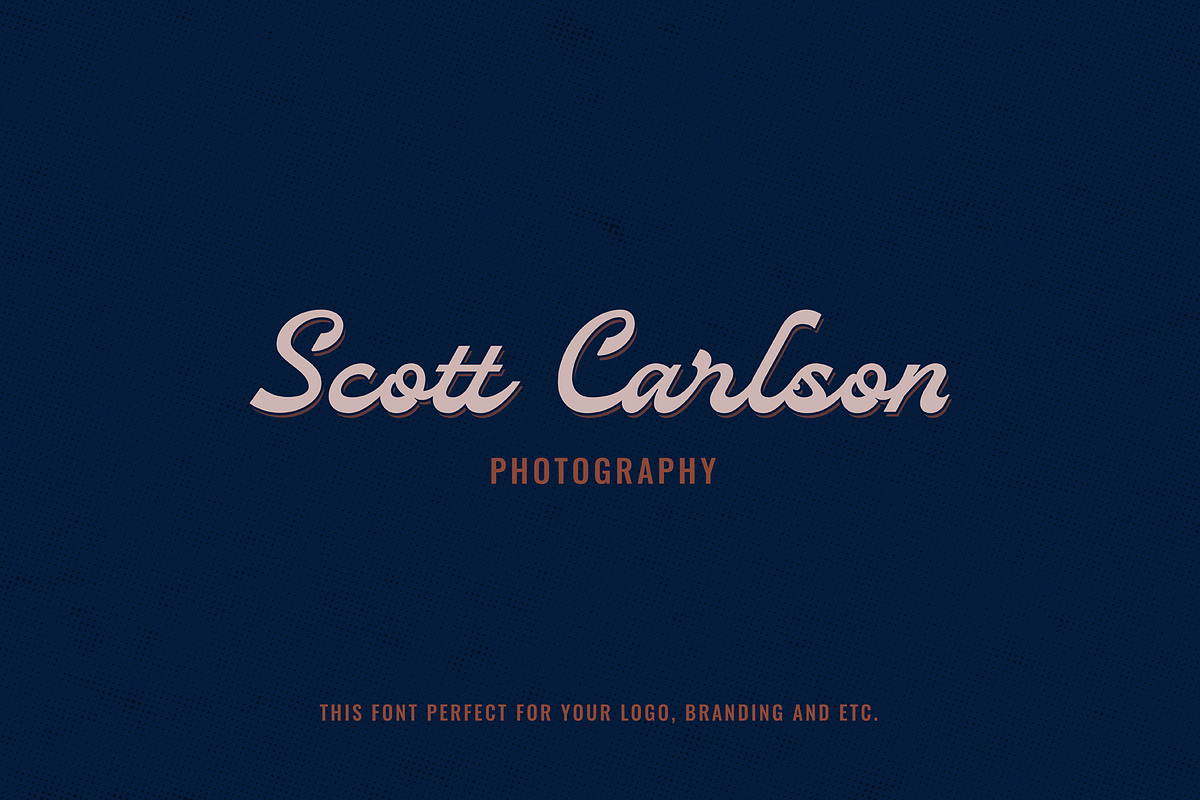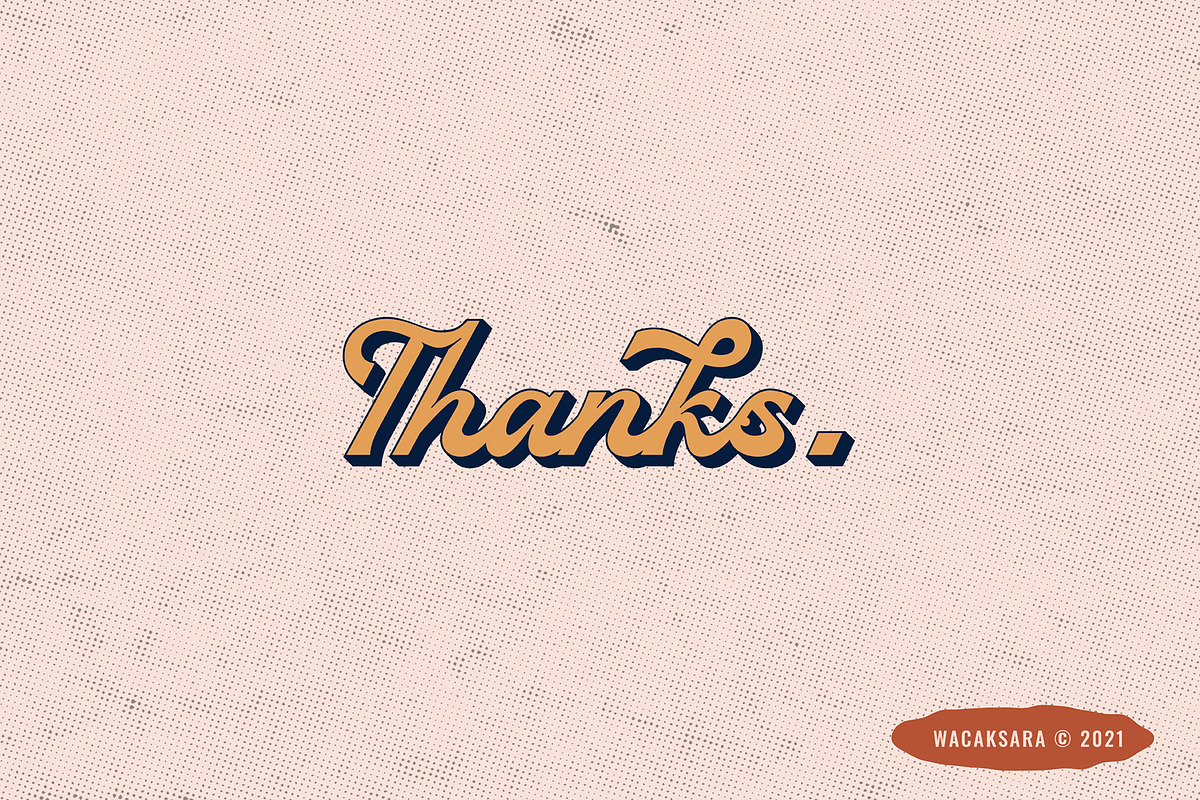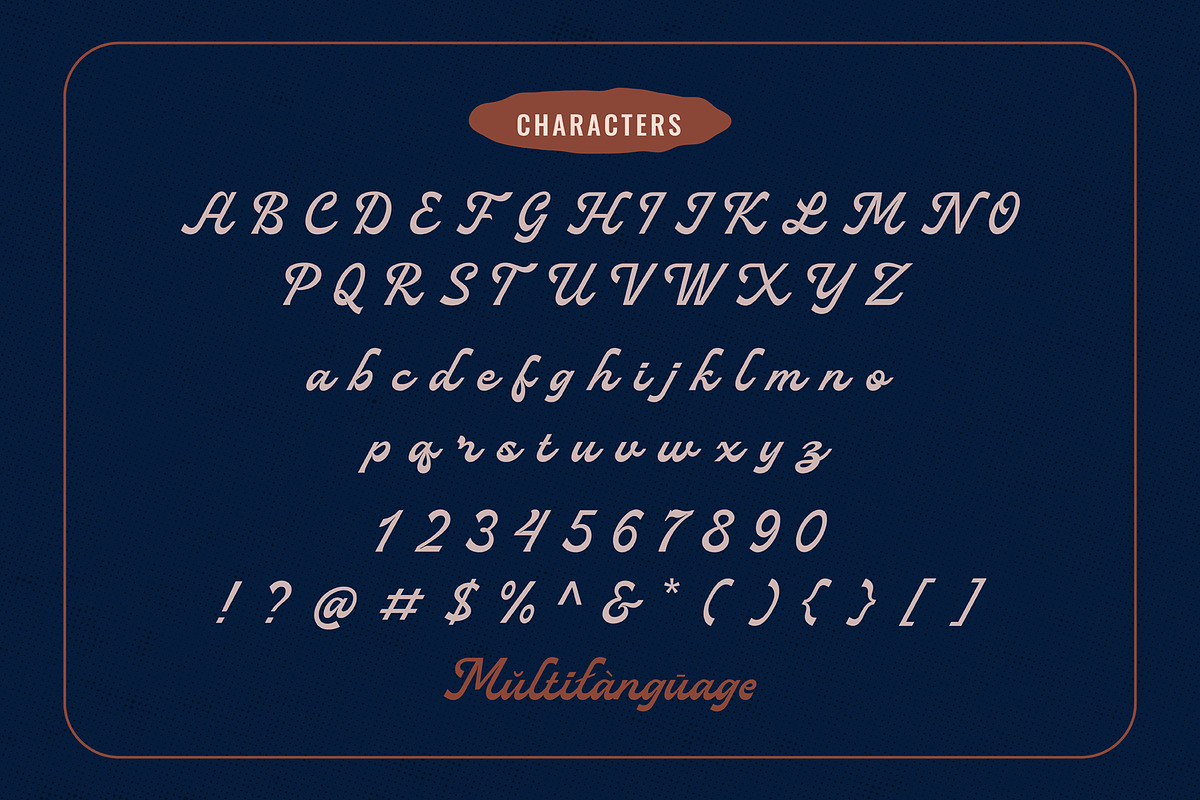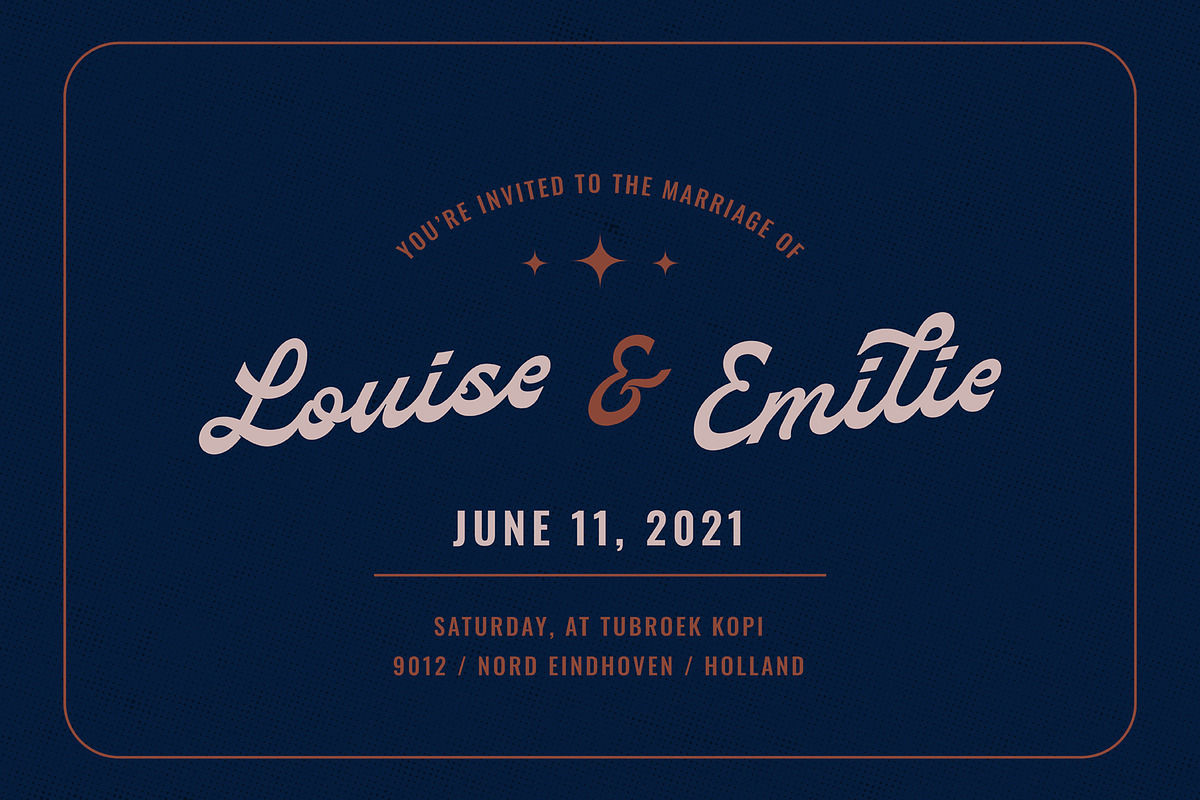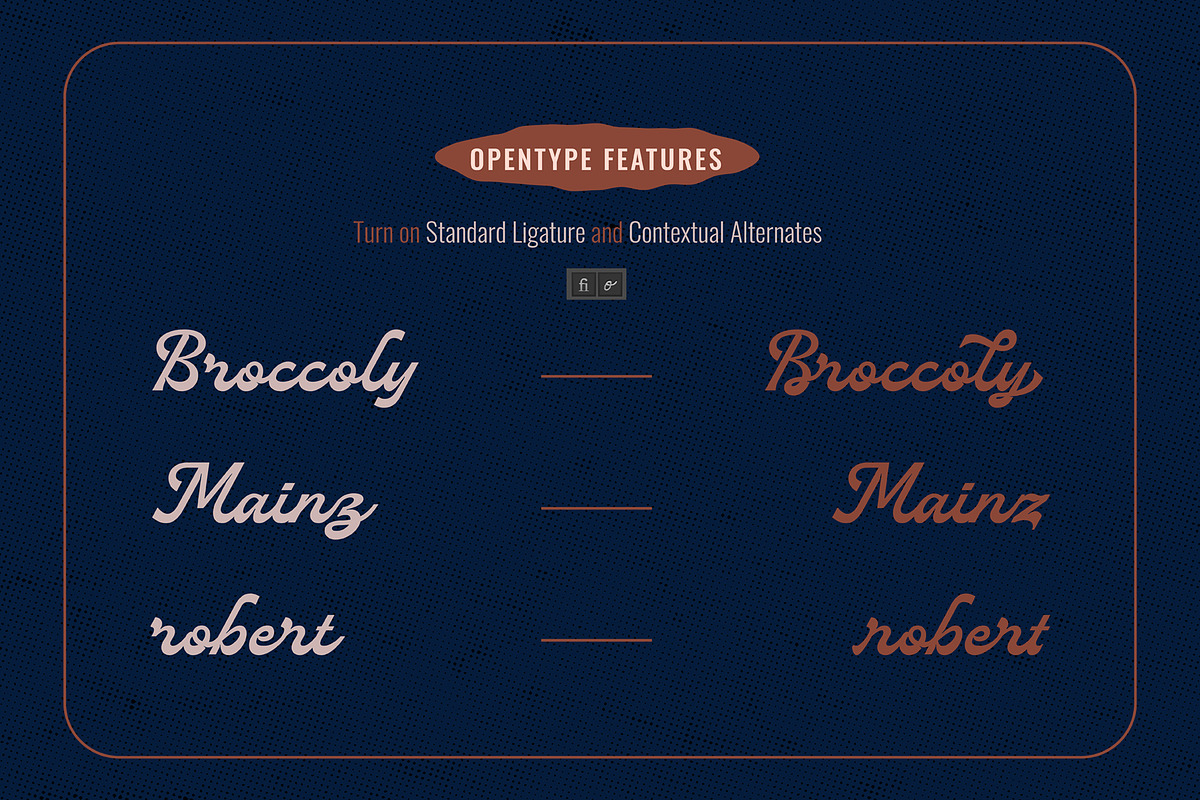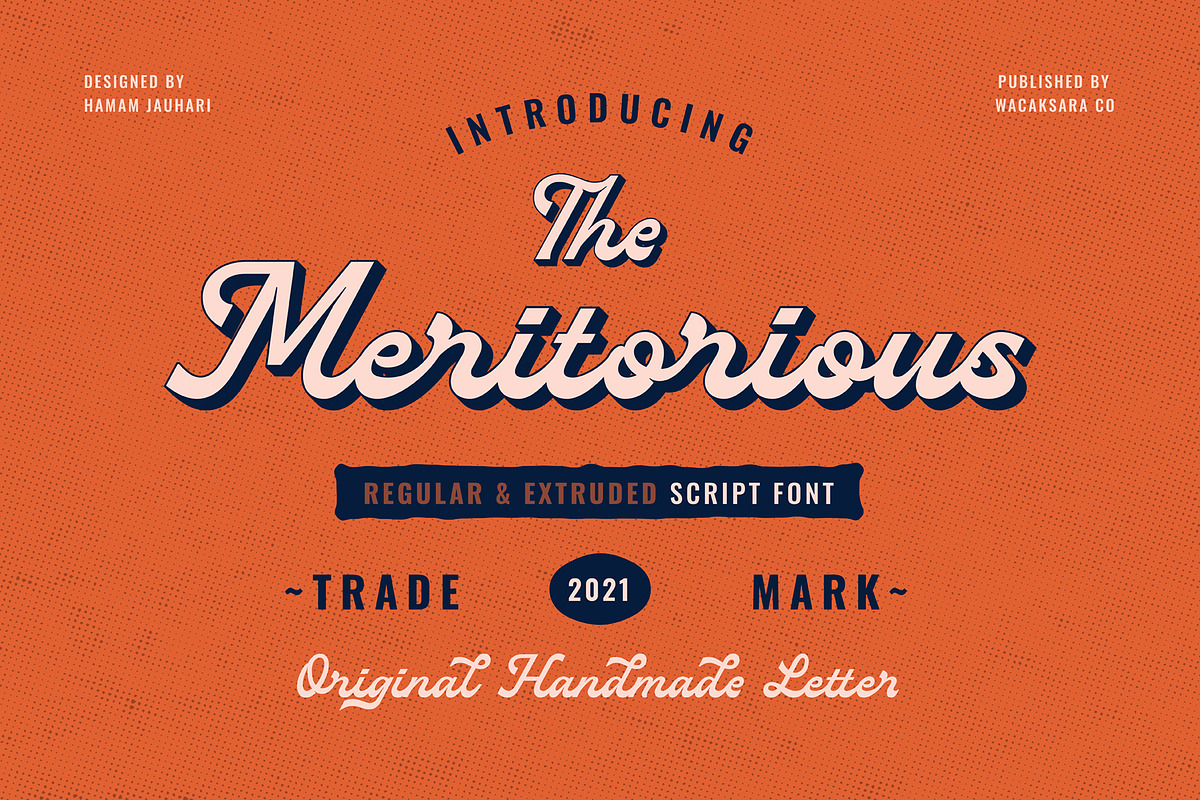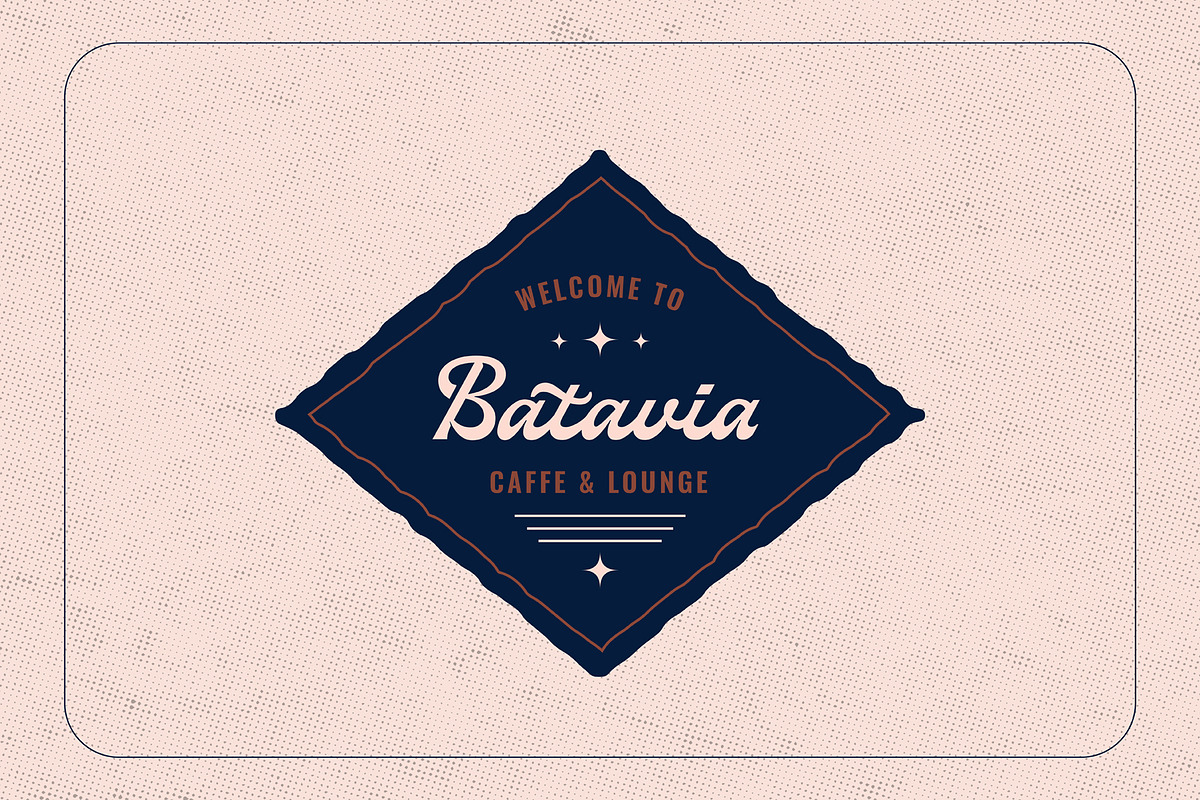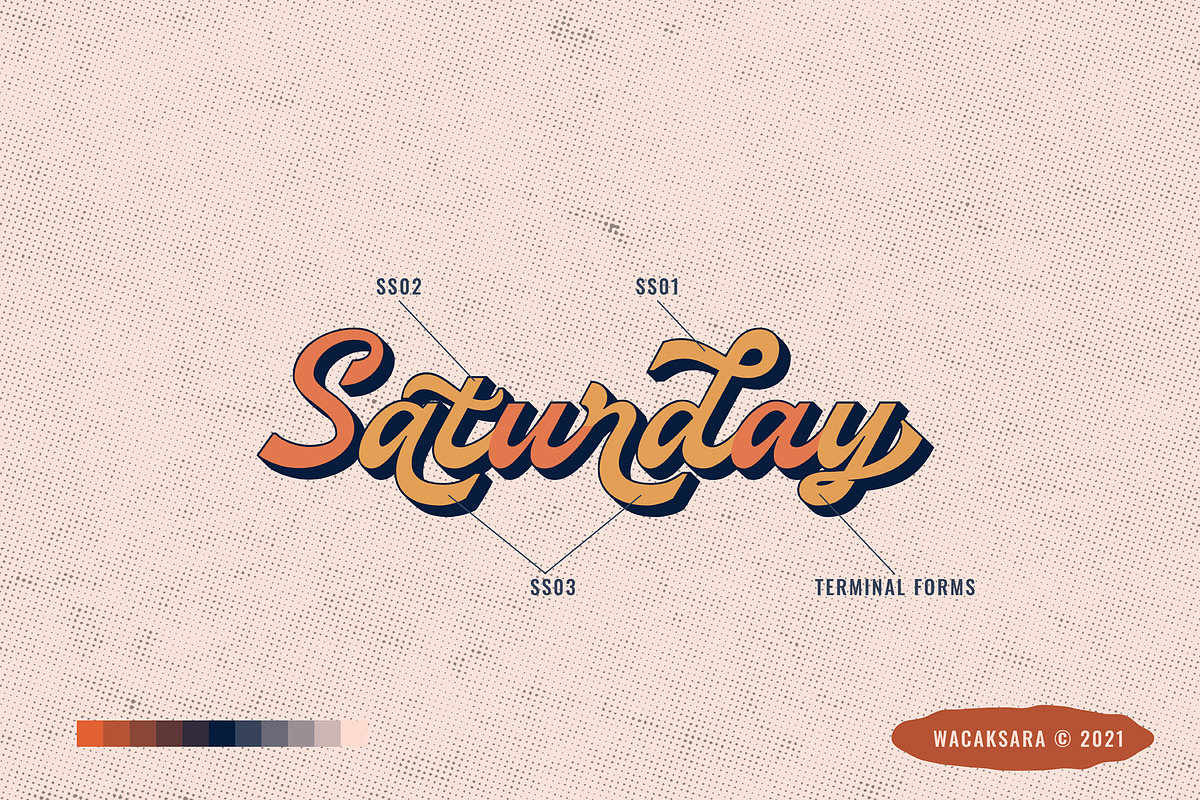
Meritorious Script
Meritorious is a script font with a bold vintage style. come with two versions (regular and extruded).
This font is inspired by the manual lettering style that is suitable for your design needs such as book cover, logotype, branding, letterhead, poster, product packaging, label, invitation, and more.
Meritorious comes with uppercase, lowercase, numbers, punctuation and there are variations on each character including OpenType alternatives, common ligatures.